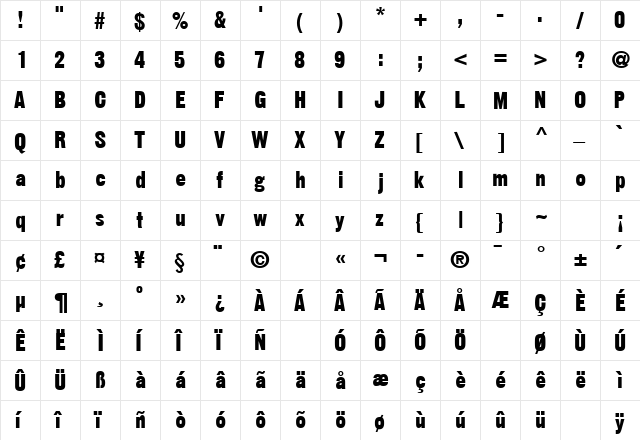
GothicSSK Regular
Design Context for GothicSSK Typeface
GothicSSK has the quiet confidence of well-executed sans-serif typography: versatile, unobtrusive, and dependable at any size.